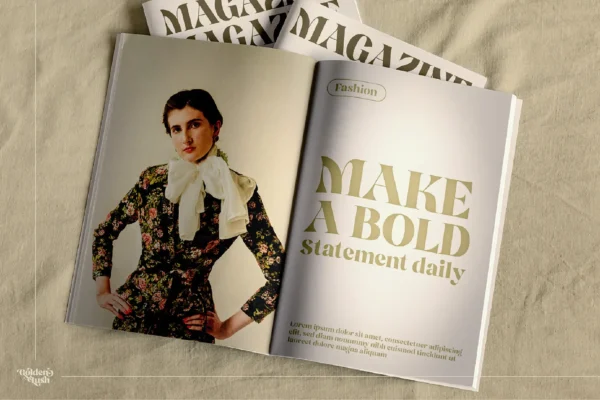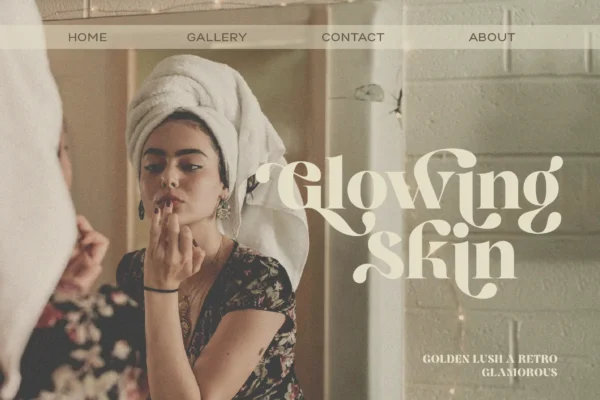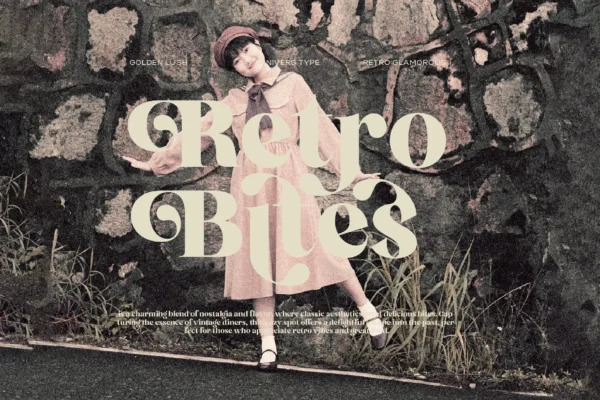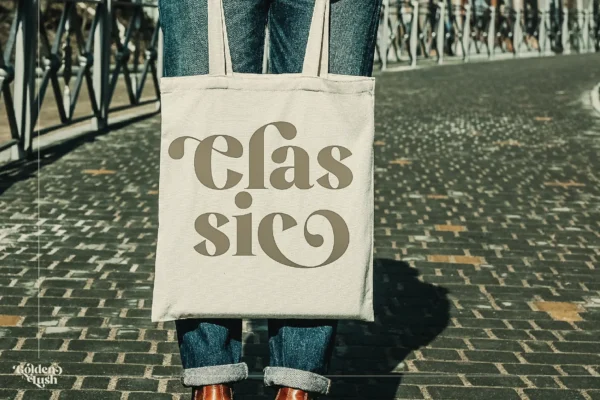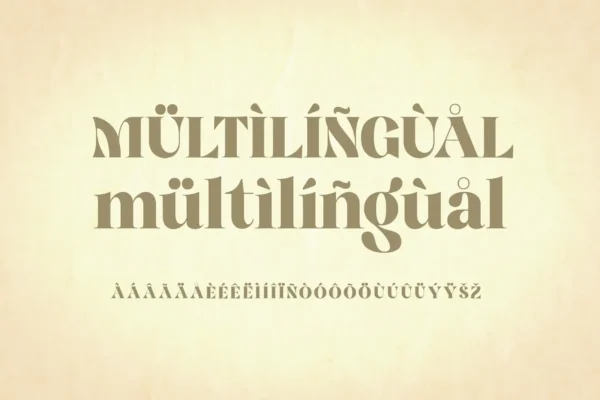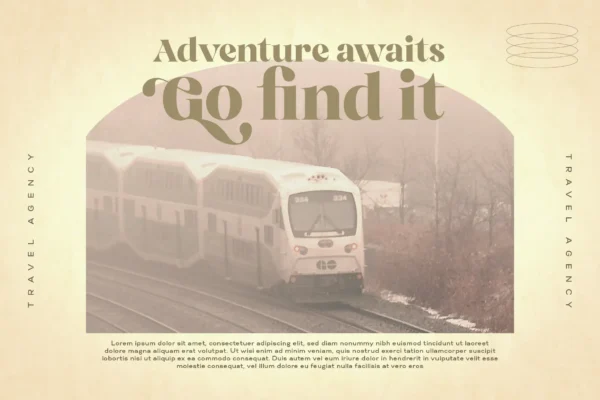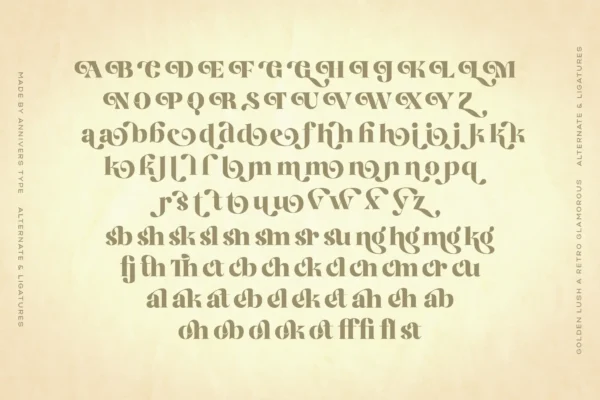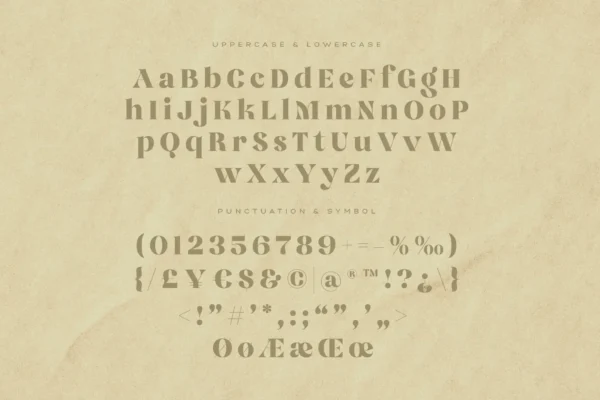
Golden Lush a Retro Glamorous Font
Golden Lush is a typeface brimming with retro glamour, drawing its inspiration from the signature typography of the 1970s to project a character that is bold, sophisticated, and elegant. Featuring substantial curves and energetic letterforms, this font imparts a sense of luxurious vintage appeal, expertly blending the timeless charm of a golden age with a contemporary sensibility.
A Tribute to Classic Style & Vintage Luxury
Forged from a love for vintage aesthetics, classic fashion, and iconic neon lighting, Golden Lush encapsulates the spirit of old Hollywood allure, classic film promotions, and high-fashion publications. It stands as the ideal choice for anyone seeking to imbue their projects with a chic, nostalgic feel that radiates refinement.
- A full set of uppercase and lowercase characters
- A comprehensive collection of numerals and punctuation
- OpenType capabilities, including ligatures and alternate characters
- Broad multilingual support